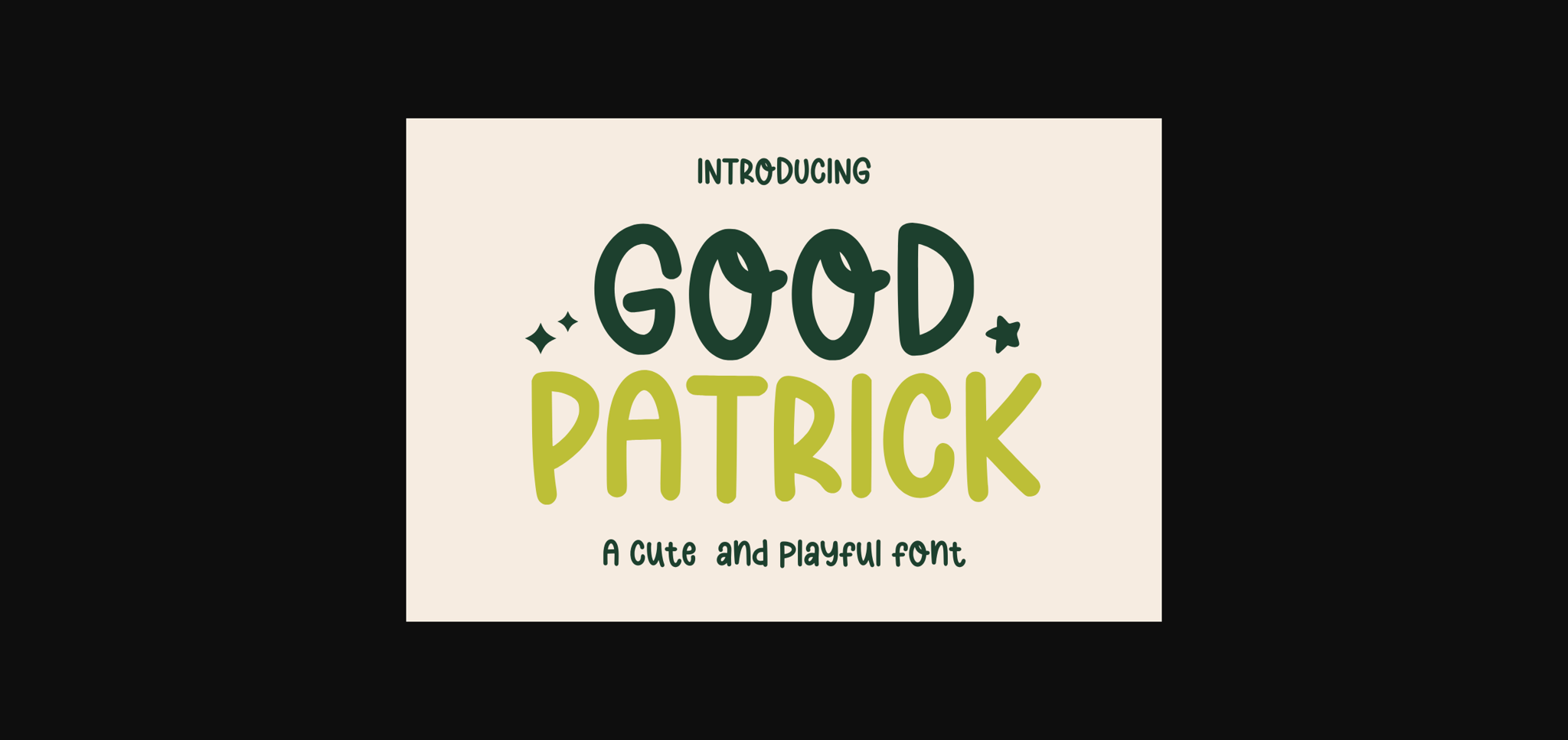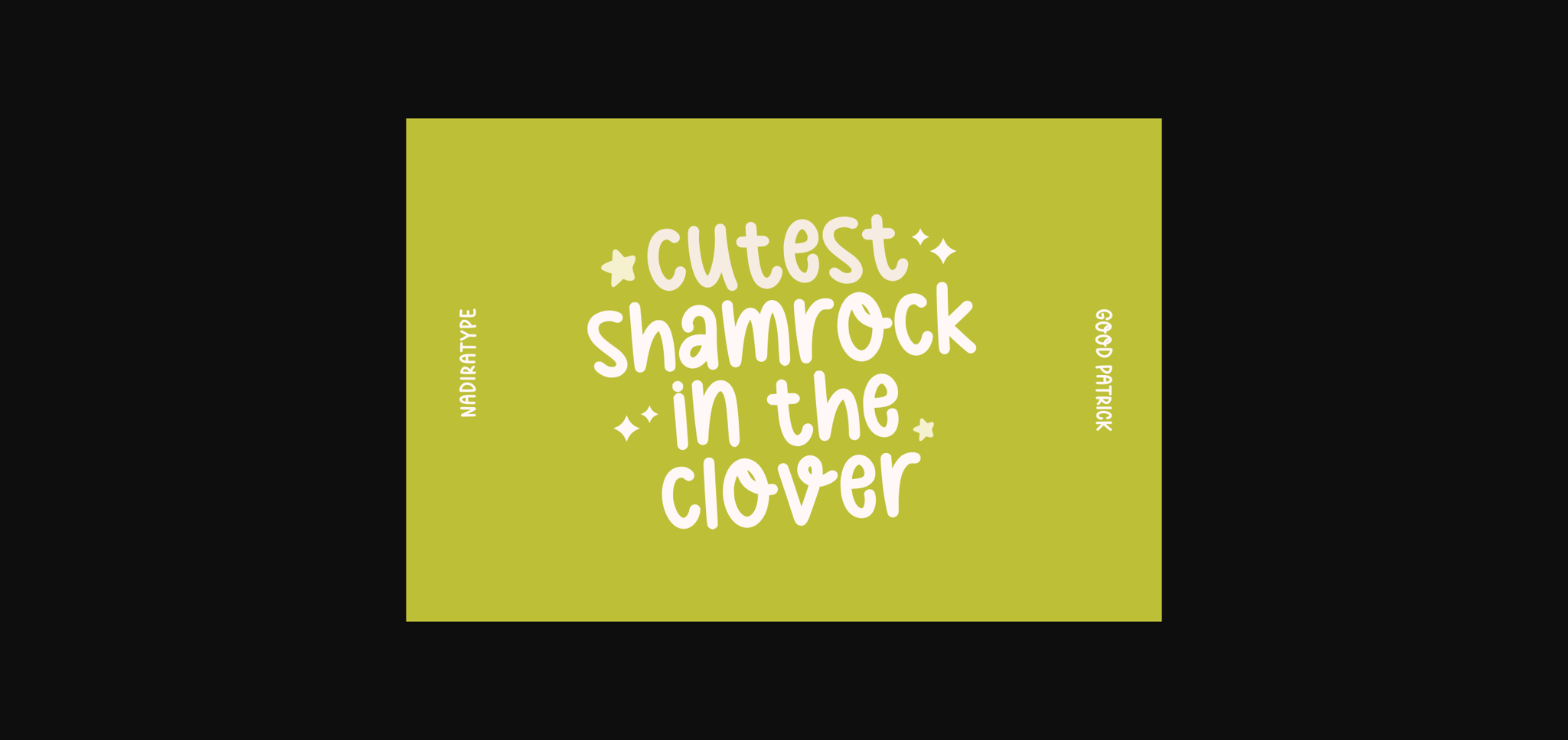
About Good Patrick Font
Good Patrick, a delightful sans-serif font, adds a touch of charm to any project with its playful and cute demeanor. The rounded letterforms and friendly curves create a warm and inviting feel, making Good Patrick the perfect choice for designs seeking a whimsical and endearing aesthetic.